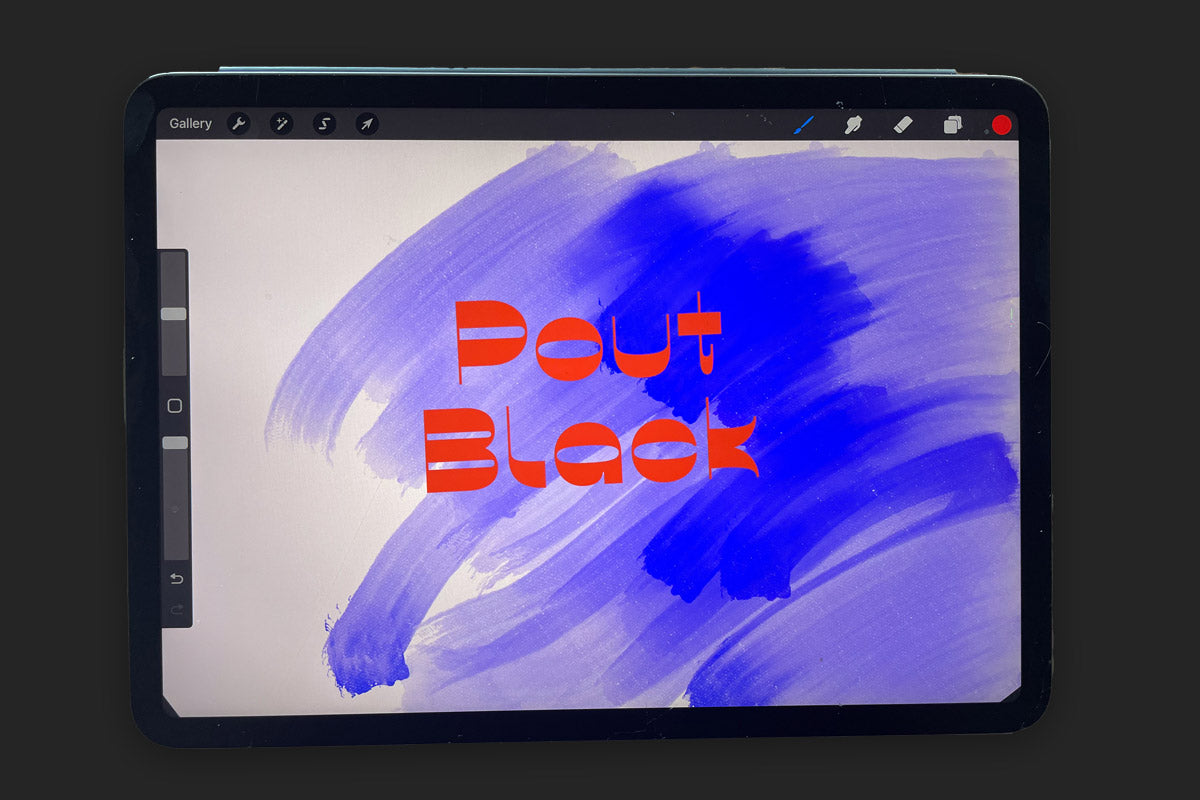
6 Cool Procreate fonts (free & commercial)
Check out these cool six fonts for Procreate—from retro to cursive and cute.
1. Vole Bold, rounded counters font
Vole Bold, rounded counters font
Vole Bold is a geometric font with filled-in counters and ink traps for a vintage water effect.
2. Chez ExtraBold, organic type
Chez ExtraBold, organic type
Chez ExtraBold is a cute organic type with a warm, personal quality.
3. Lace Light, Handwritten monolinear font
Lace Light, Handwritten monolinear font
4. Pout Black, cool reverse-contrast type
Pout Black, cool reverse-contrast type
5. Goji ExtraBold, cool bubble font
Goji ExtraBold, cool bubble font
6. Loco Bold, fun bubble font with highlights
Loco Bold, fun bubble font with highlights